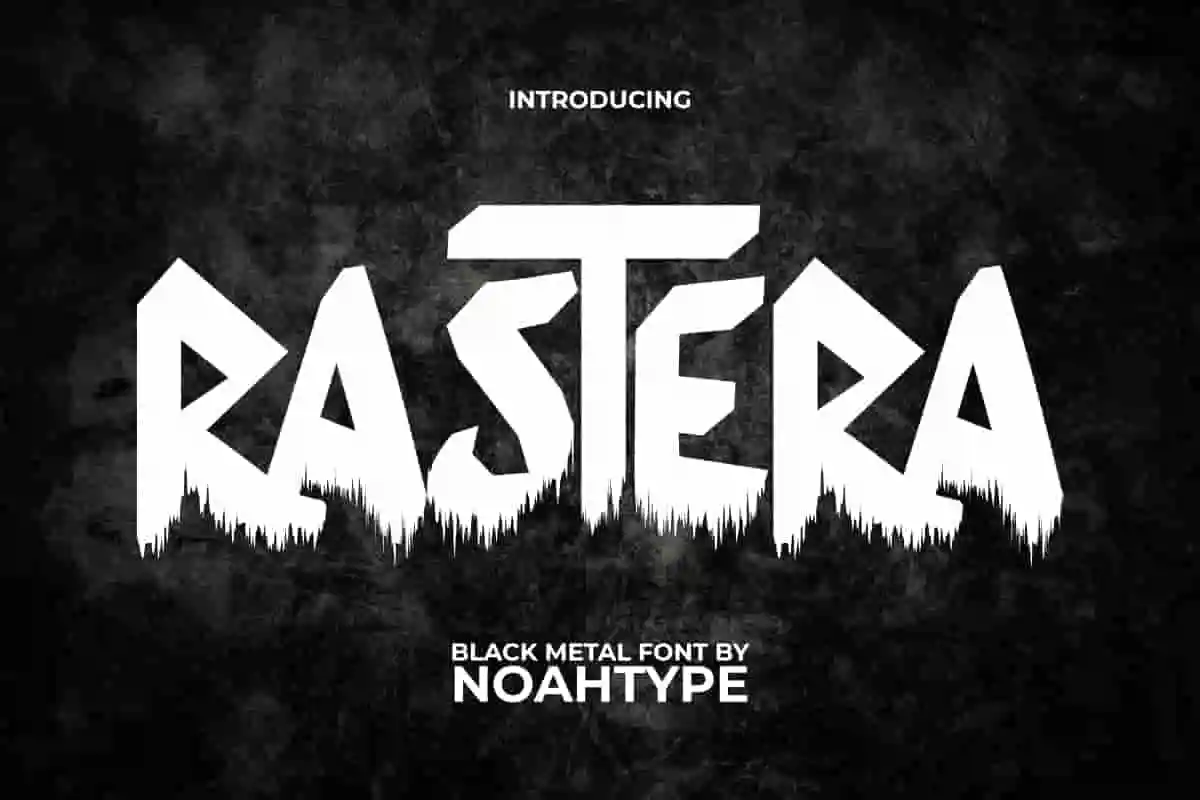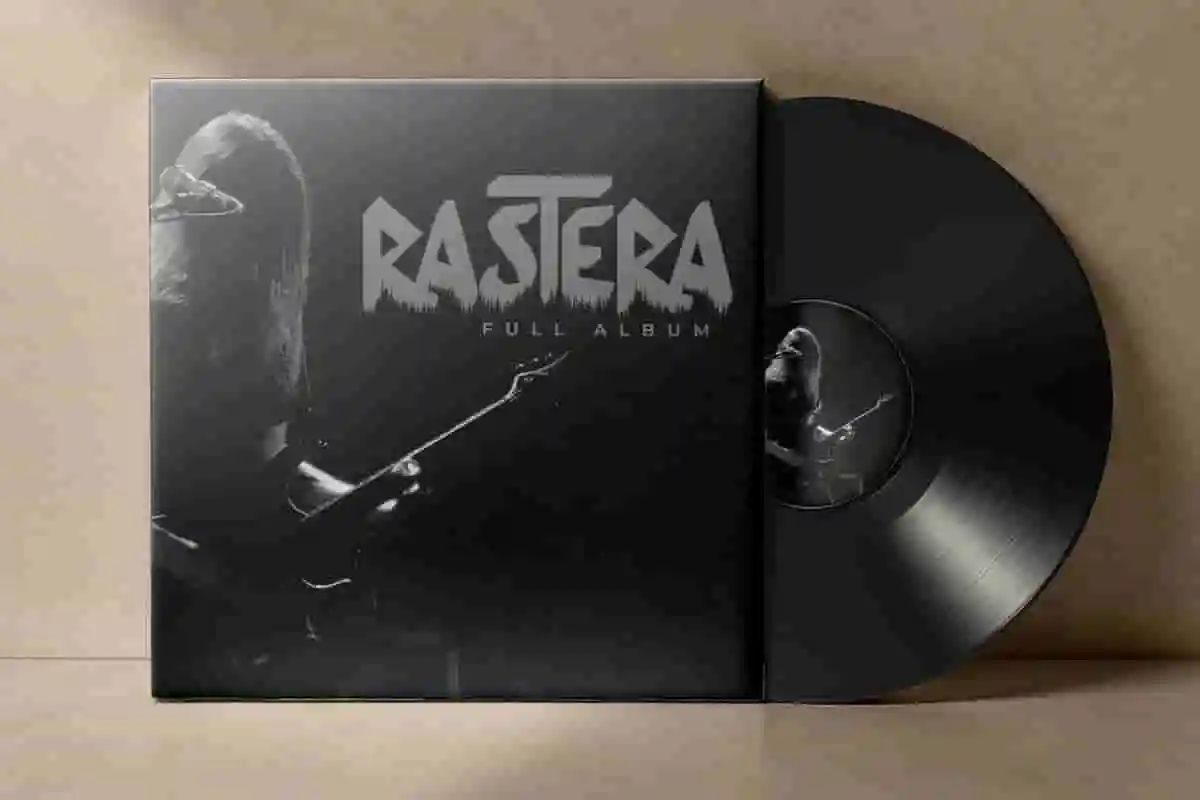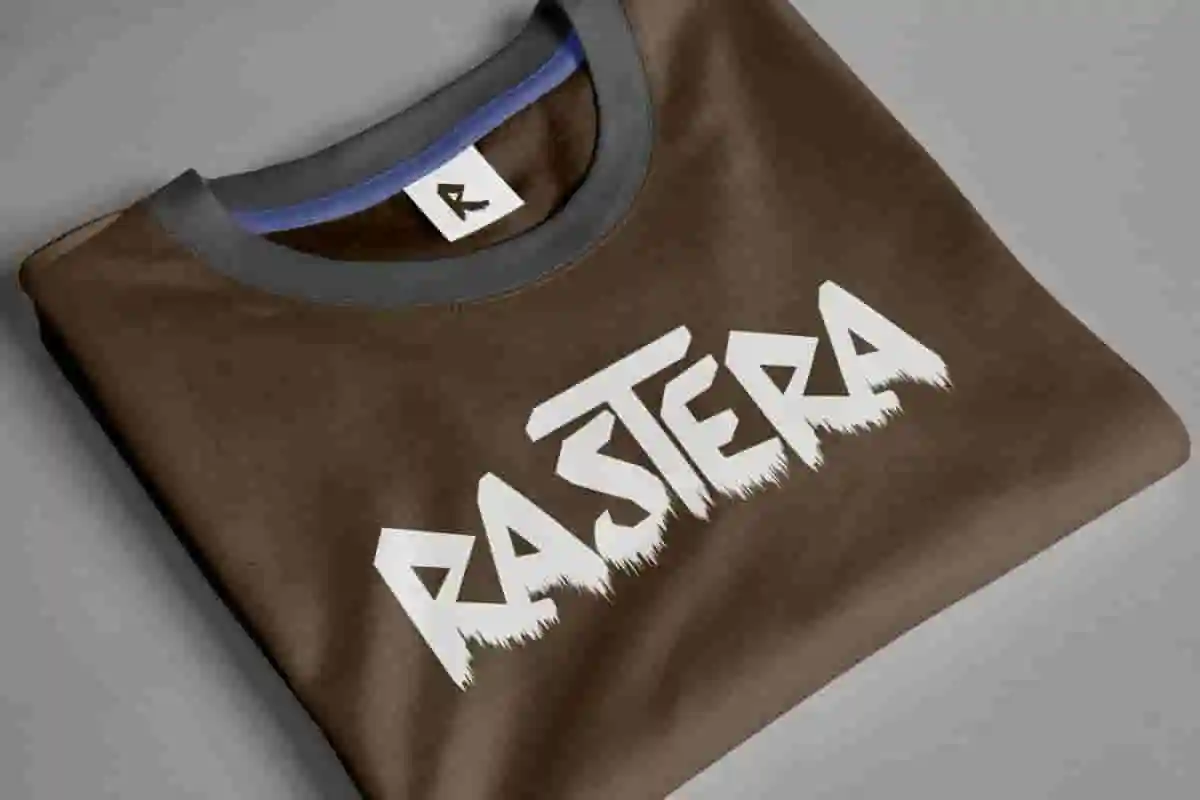
Rastera Font is a punk black metal font with a creepy frost elements by NoahType. This font has a character with a bold and horror charm at the same time because there are drops under the letters. It will be perfect for any designs, such as custom design, brand image, cover, invitation, label, marketing material, menu, poster, printing, product packaging, quotes, signage, website, and many more!
Rastera Font includes full set of ALL CAPS for Uppercase and Lowercase Basic Characters, Numerals, Punctuation, and Symbol. This font will make your design standout and also a perfect choice for many industries, such as game, movie, accessories, advertising, art, café, event or festival, fashion, printing, publishing, etc.